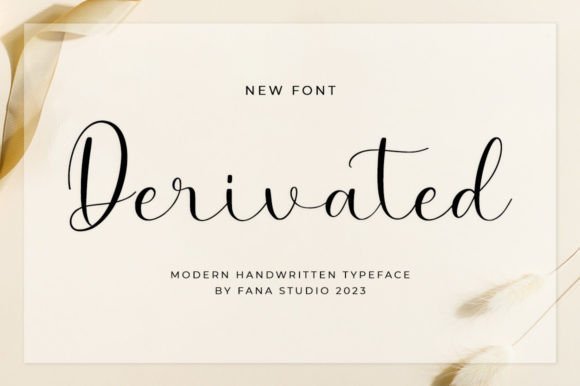
Introduction to Derivated Font
Derivated Script is a stylish font style.
This beautiful script font offers your personal touch to your latest art project with an elegant, classy, and modern look The Derivated Script offers gorgeous typography perfect for logos & branding, invitations, stationery, wedding designs, social media posts, advertisements, product packaging, product designs, labels, photography, watermarks, special events, or anything that needs handwriting taste.
Derivated Font offers exceptional quality and versatility, making it a valuable addition to your design toolkit. Whether you’re creating for personal projects or commercial use, Derivated Font delivers professional results.